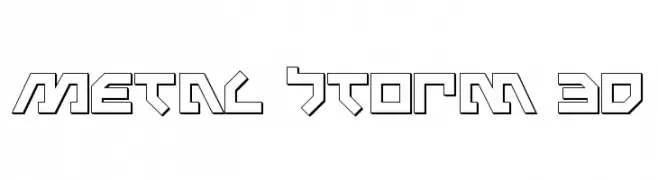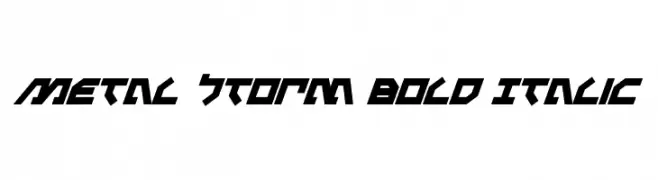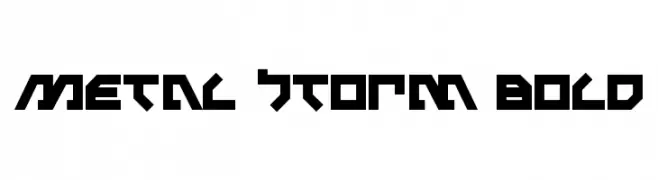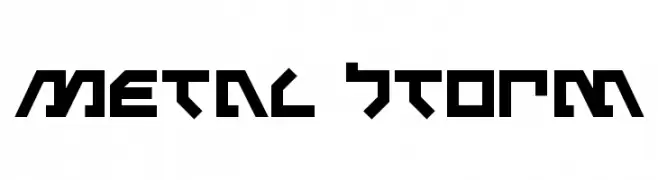
A bold, angular font with a futuristic and industrial design.
A bold, futuristic font with a 3D metallic effect and sharp geometric shapes.
A bold, futuristic 3D italic font with angular, geometric characters.
A bold, angular font with a futuristic and industrial style.
A bold, italicized font with a futuristic and angular design.
A bold, geometric, and condensed font with a futuristic style.